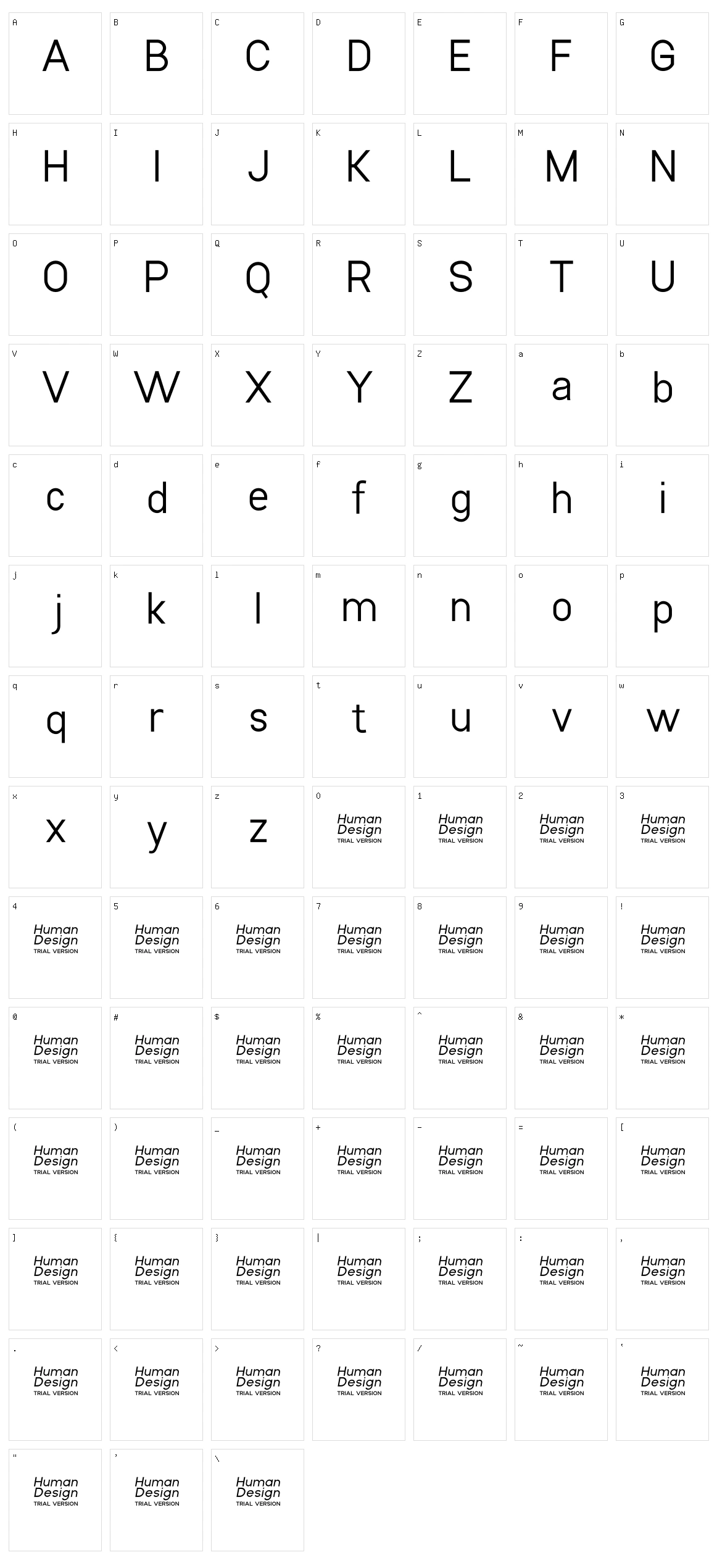
The free font Manado is carefully designed by Human Design, showcasing a thoughtful balance of creativity and usability and falls under the Sans serif font style. When you download the ZIP file, it contains only 14.9 KB of font files, making it lightweight and quick to download. Please review the license details below to understand permitted usage and distribution rights. If license information is not available, we recommend using this font for personal projects only or contacting the author directly for commercial usage permissions.
Manado Font By Human Design